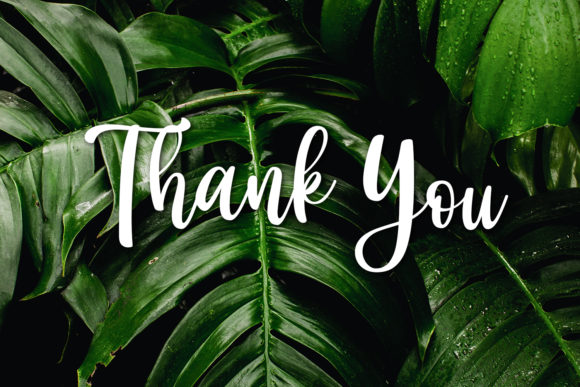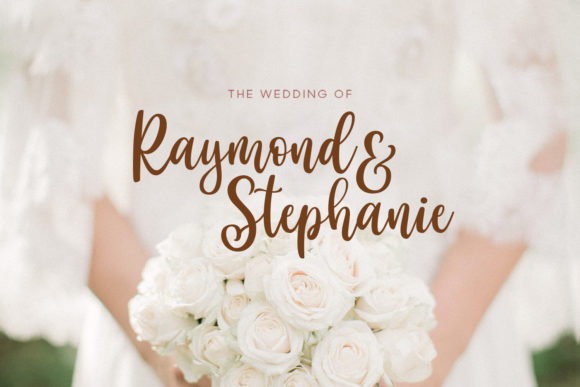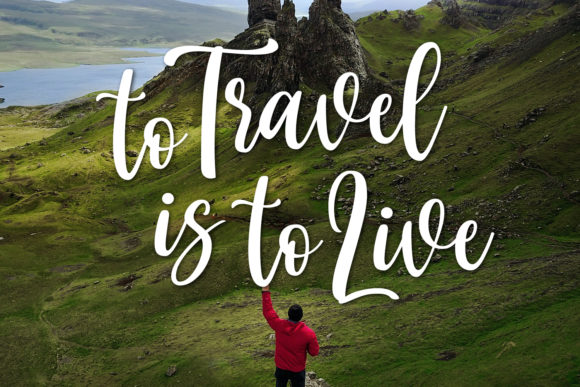
Introduction to Cloverist Font
Cloverist is a bold and fun handwritten font.
A little bit quirky, this font looks incredibly adept on a wide variety of contexts .